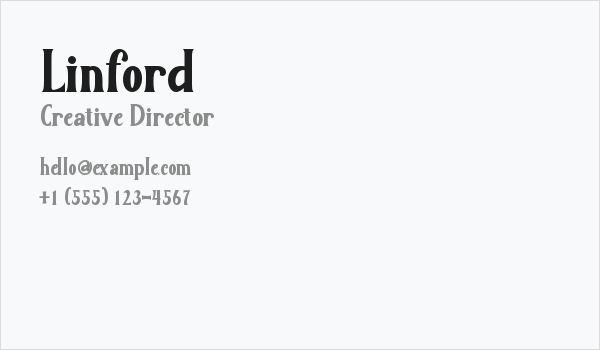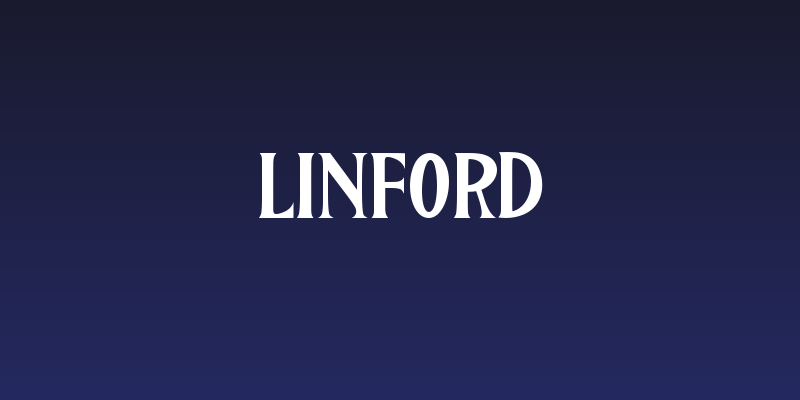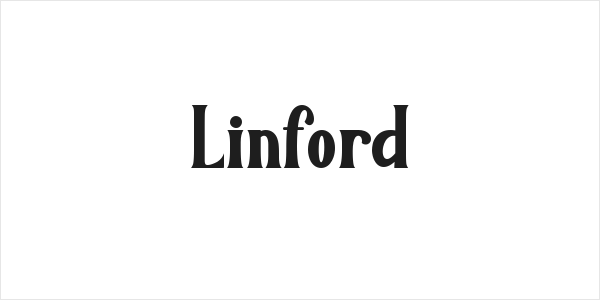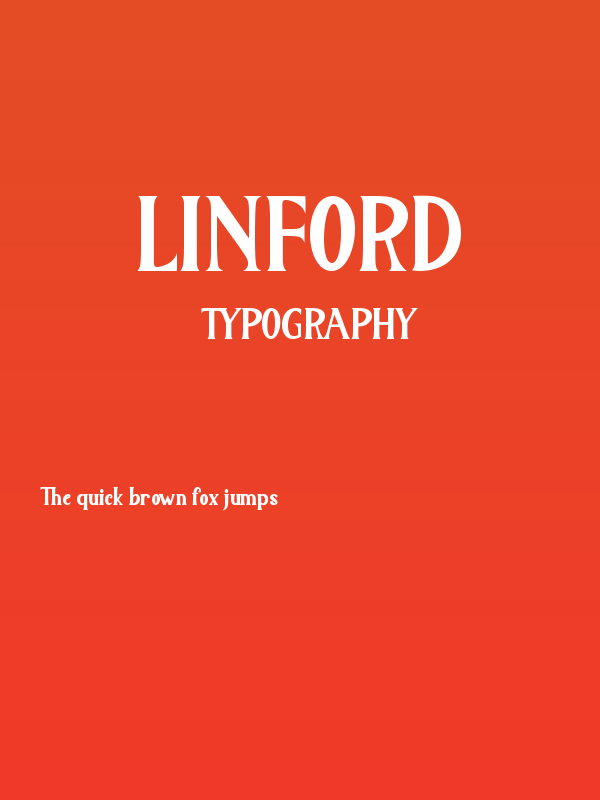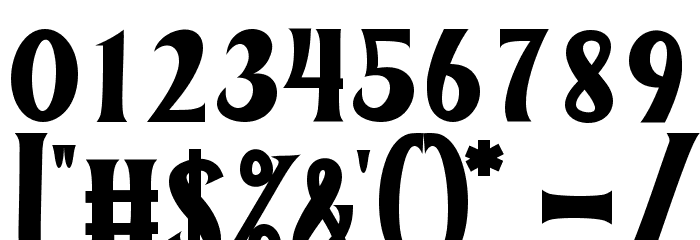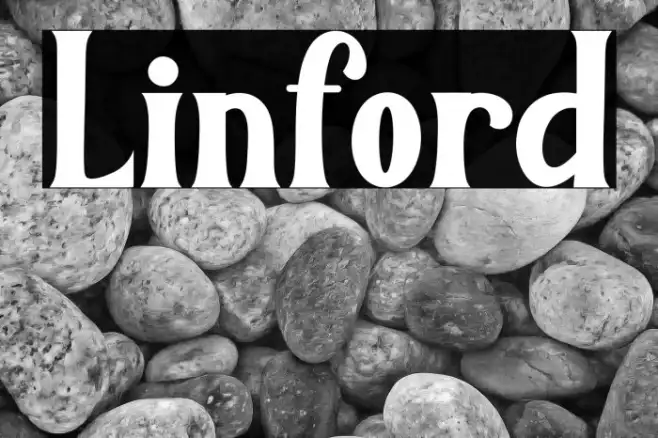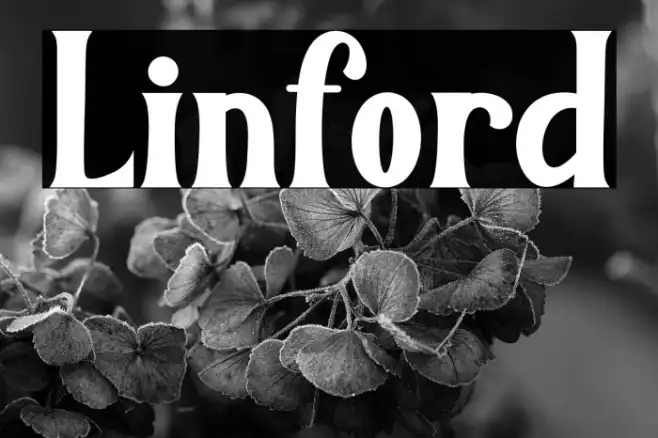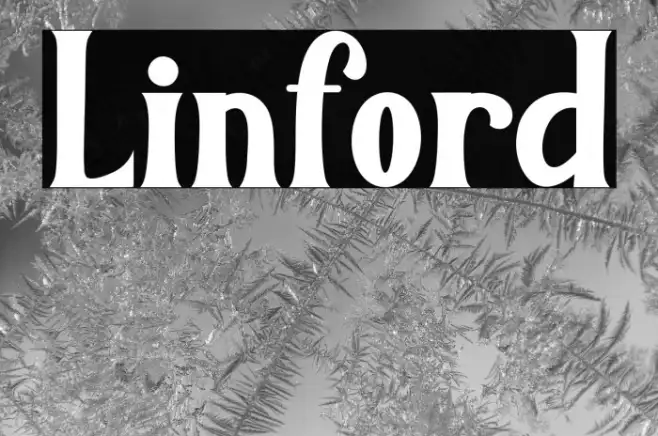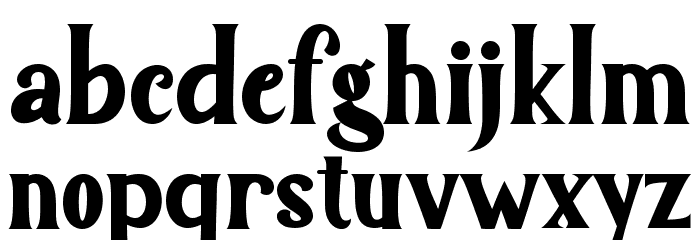
Linford Font
Linford Description
This font features a bold and dynamic style with a strong presence. The uppercase letters are tall and slightly condensed, giving a sense of authority and impact. The lowercase letters maintain a consistent weight, offering a harmonious flow. The numerals are robust, matching the boldness of the alphabet. Special characters are distinct and well-defined, adding versatility to the font. The overall design is reminiscent of vintage typography, with a modern twist that makes it suitable for various contemporary applications.
| Proposed Projects | Ideal for branding, poster design, headlines, and any project requiring a bold, impactful typeface. |